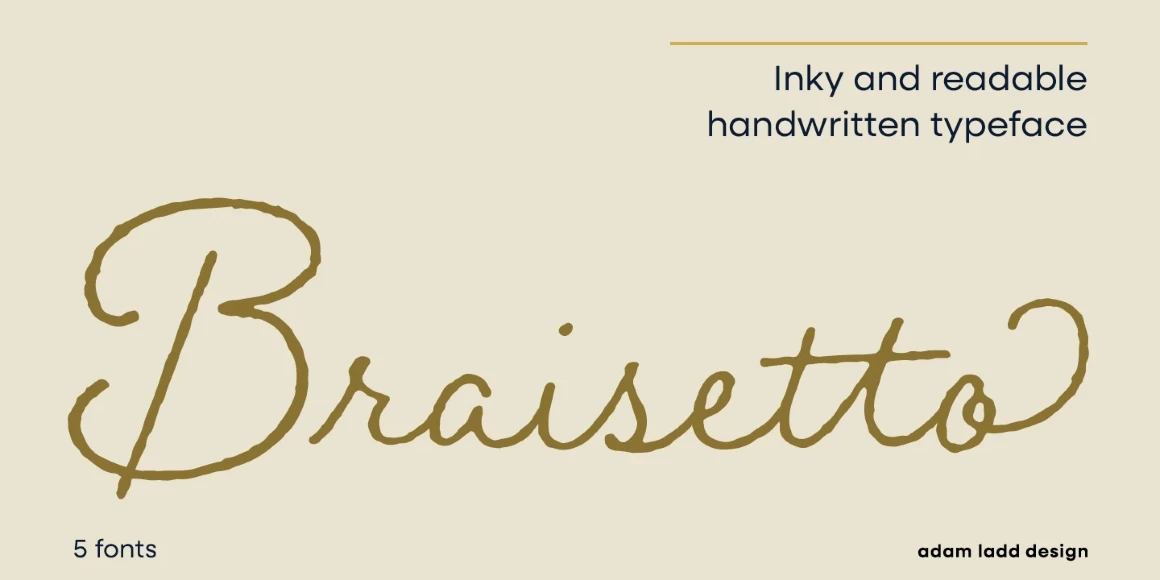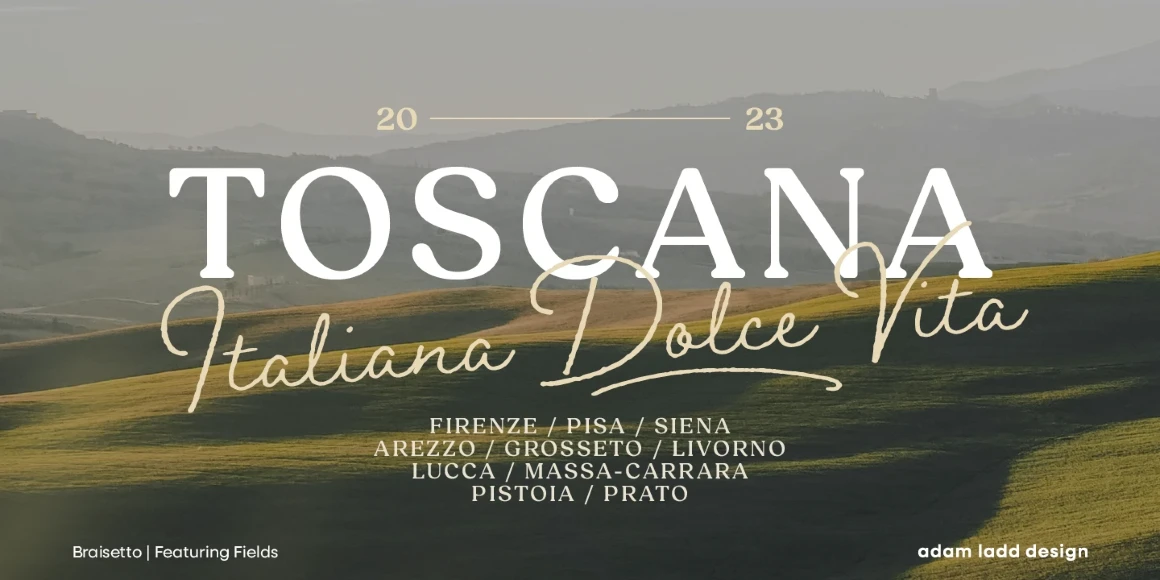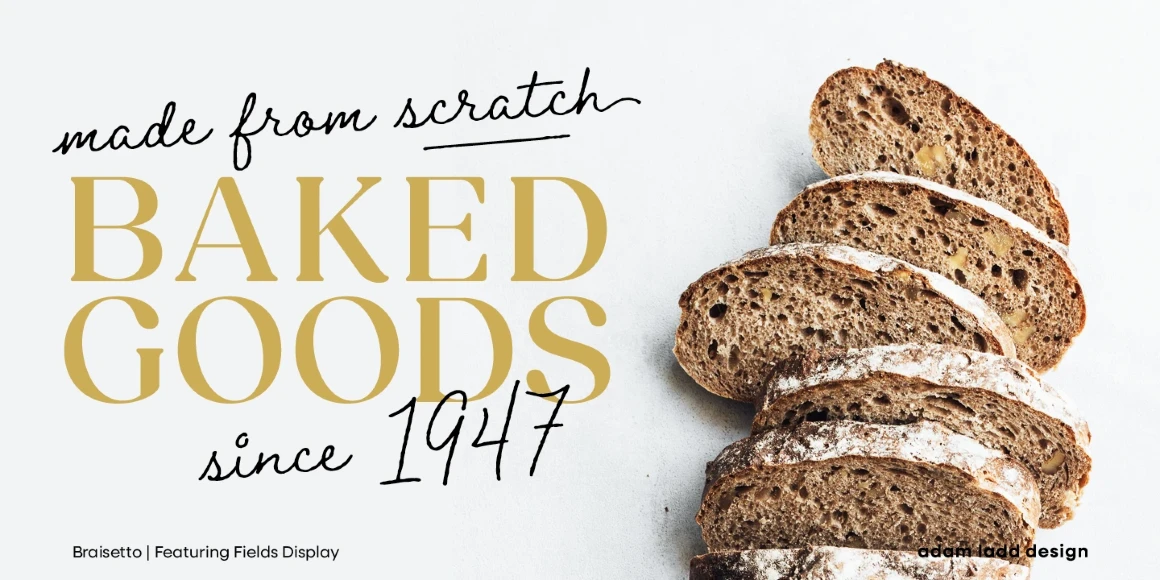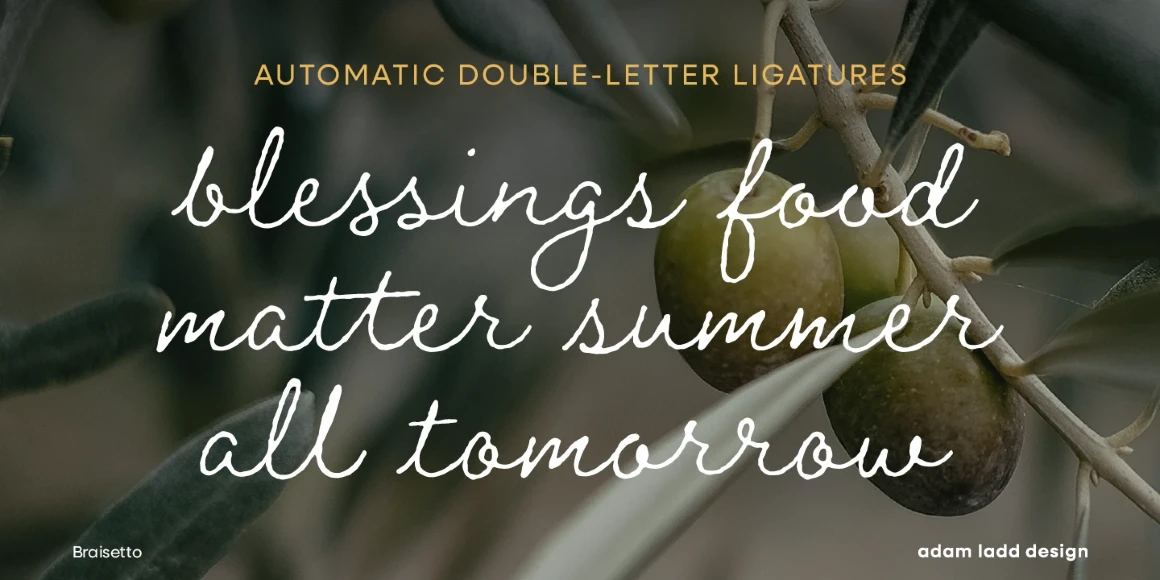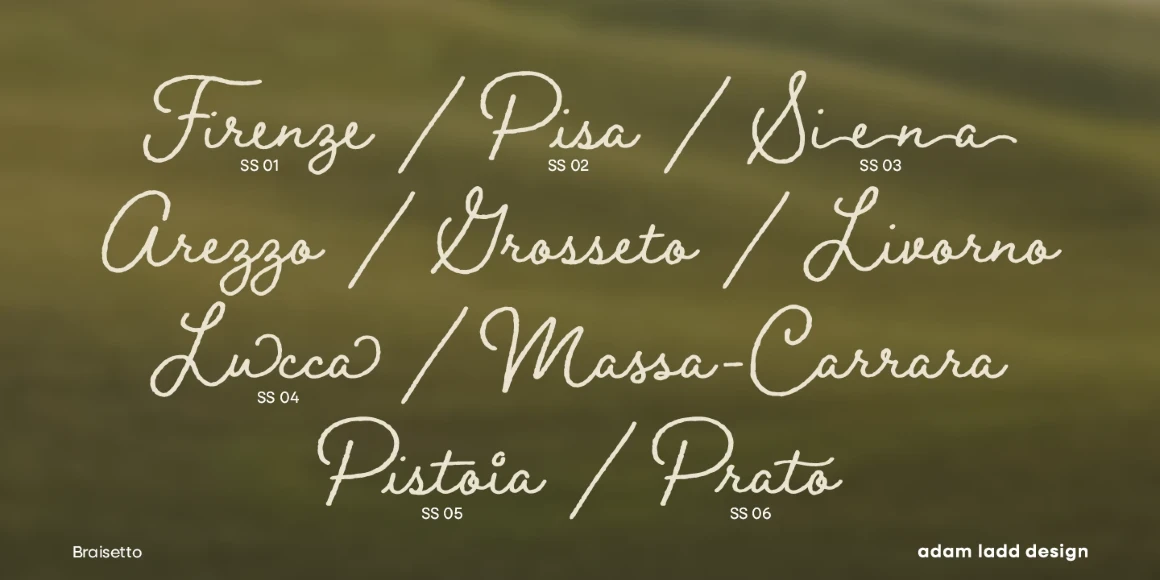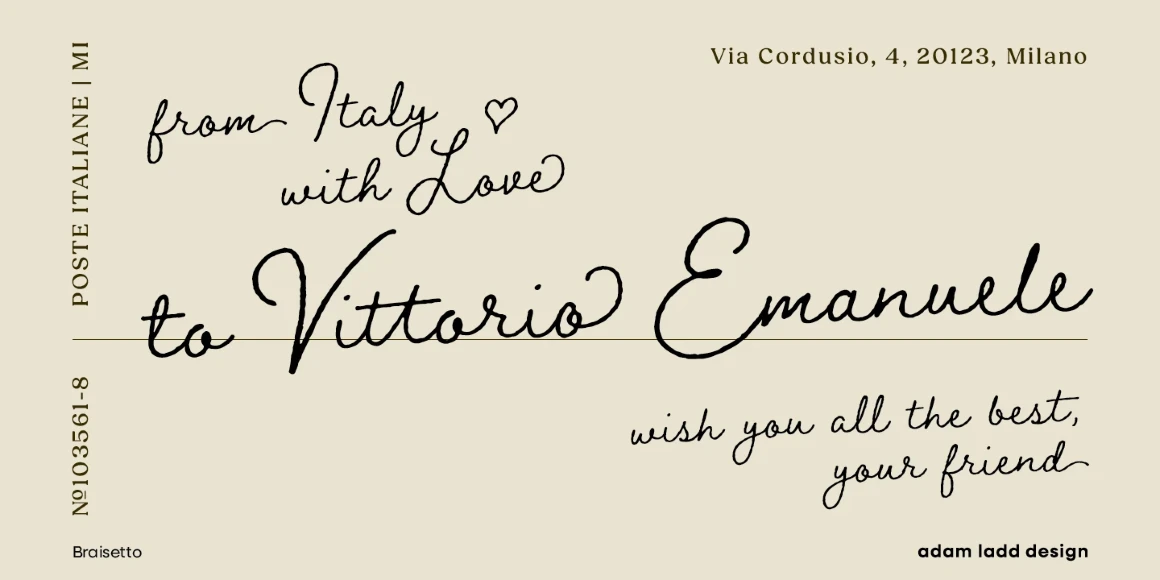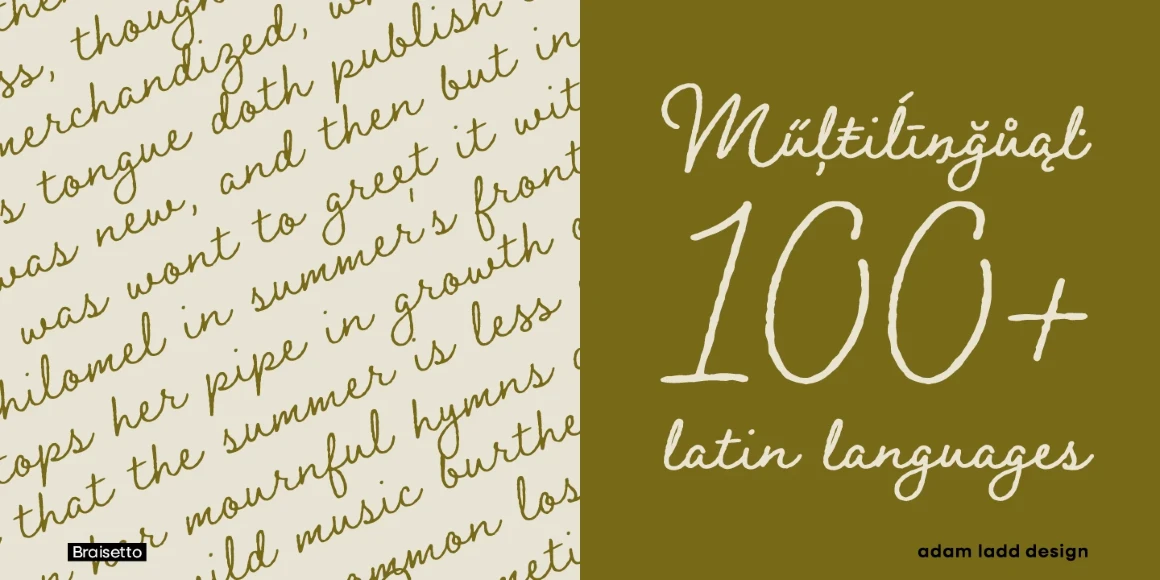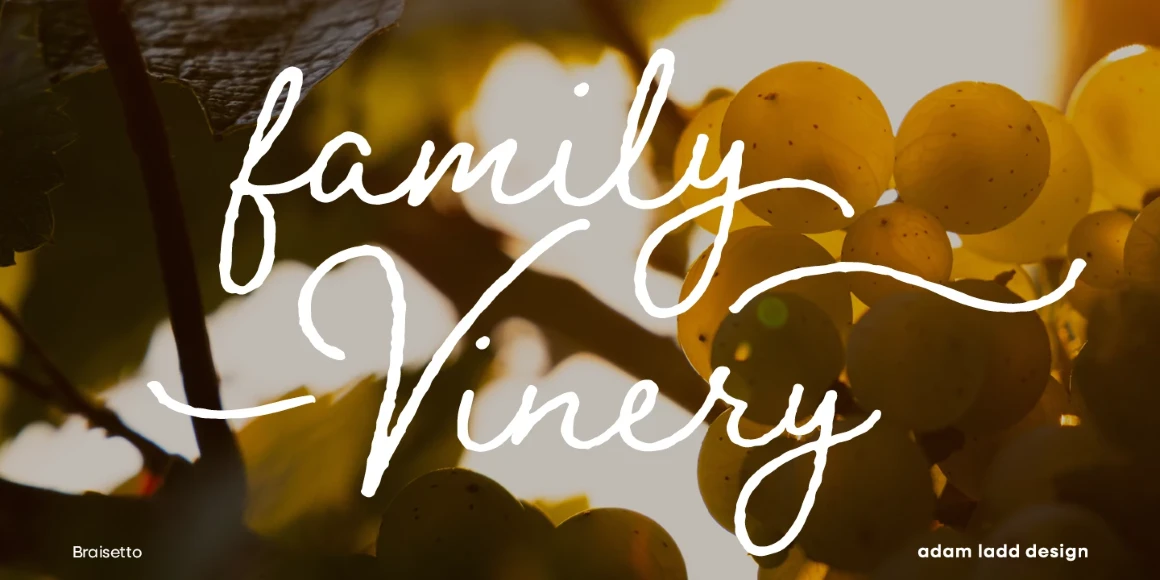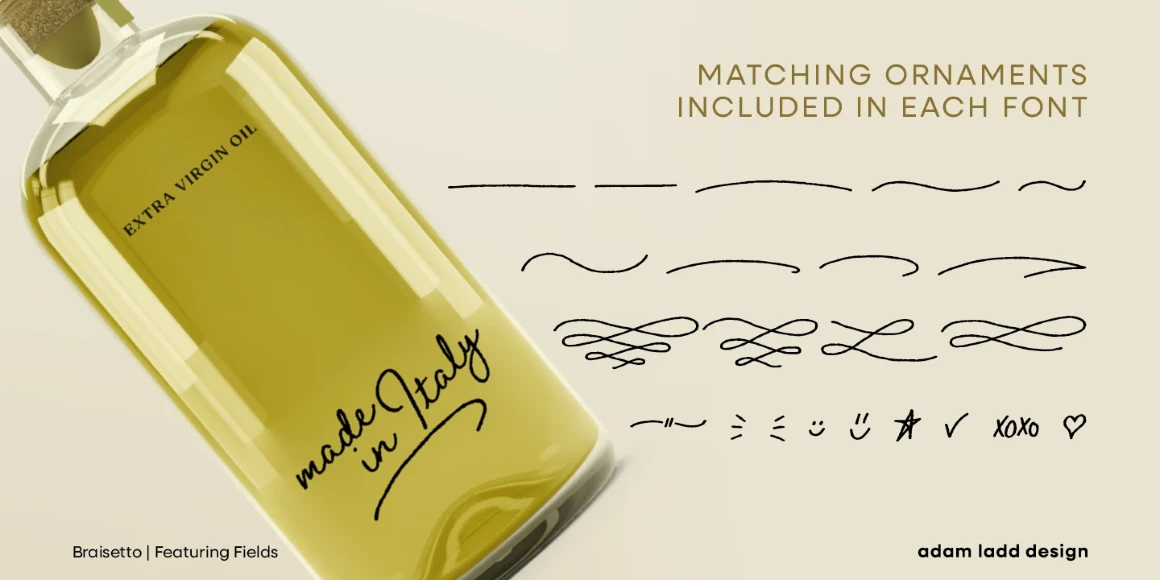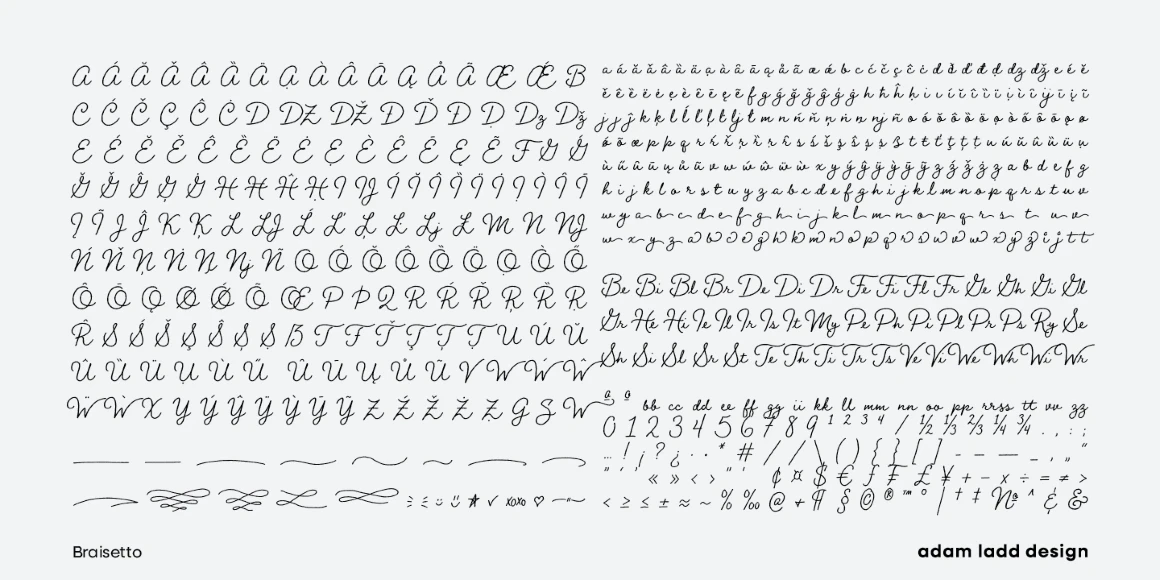
Braisetto
By Adam Ladd
Braisetto Thin
Braisetto Light
Braisetto Regular
Braisetto Bold
Braisetto Black
Braisetto is a jovial script typeface designed with a handwritten exuberance. Inky and readable, expressive and functional, this family of typefaces is thoughtfully designed to be both individual and versatile at the same time. Braisetto can stand out as a friendly headline or step back and be a demure complement to pair with other typefaces. Choose from any of the five subtle weights to meet your needs. Braisetto is ideal for branding, packaging, display, products, cards, and more.